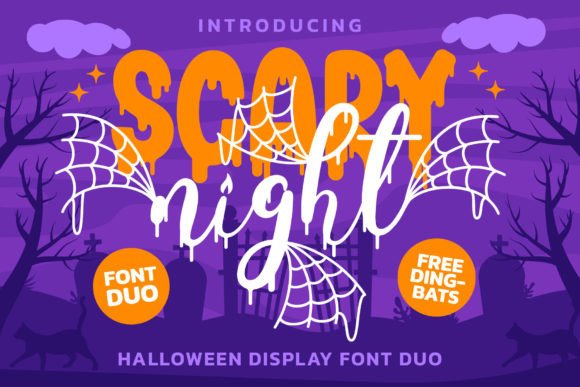
Looking for the perfect font to add a spooky and cute vibe to your Halloween-themed designs? Look no further than Scary Night Duo Font! Created by Hoperative Design, this font family is the ultimate choice for anyone in search of the best font for decorative signs.
Scary Night Duo Font is a fun and captivating typeface that combines both a handwritten and display style. With its eerie Halloween theme, it instantly adds a touch of whimsy to any creative project. Whether you're designing t-shirts, books, posters, or anything in between, this font has got you covered!
What sets Scary Night apart from other fonts is its masterful design. Every curve and stroke has been carefully crafted to ensure that your creative ideas reach their highest potential. From spooky quotes to cute illustrations, this font brings your imagination to life like never before.
But that's not all – Scary Night is also PUA encoded, which means accessing all the unique glyphs and swashes is a breeze! You'll have endless possibilities to customize and personalize your designs, making them truly one-of-a-kind.
With Scary Night Duo Font, your Halloween designs will stand out from the crowd. Whether you're creating a haunted house flyer or a pumpkin carving guide, this font will grab attention and evoke the perfect emotions in your audience. Get ready to make a lasting impression!